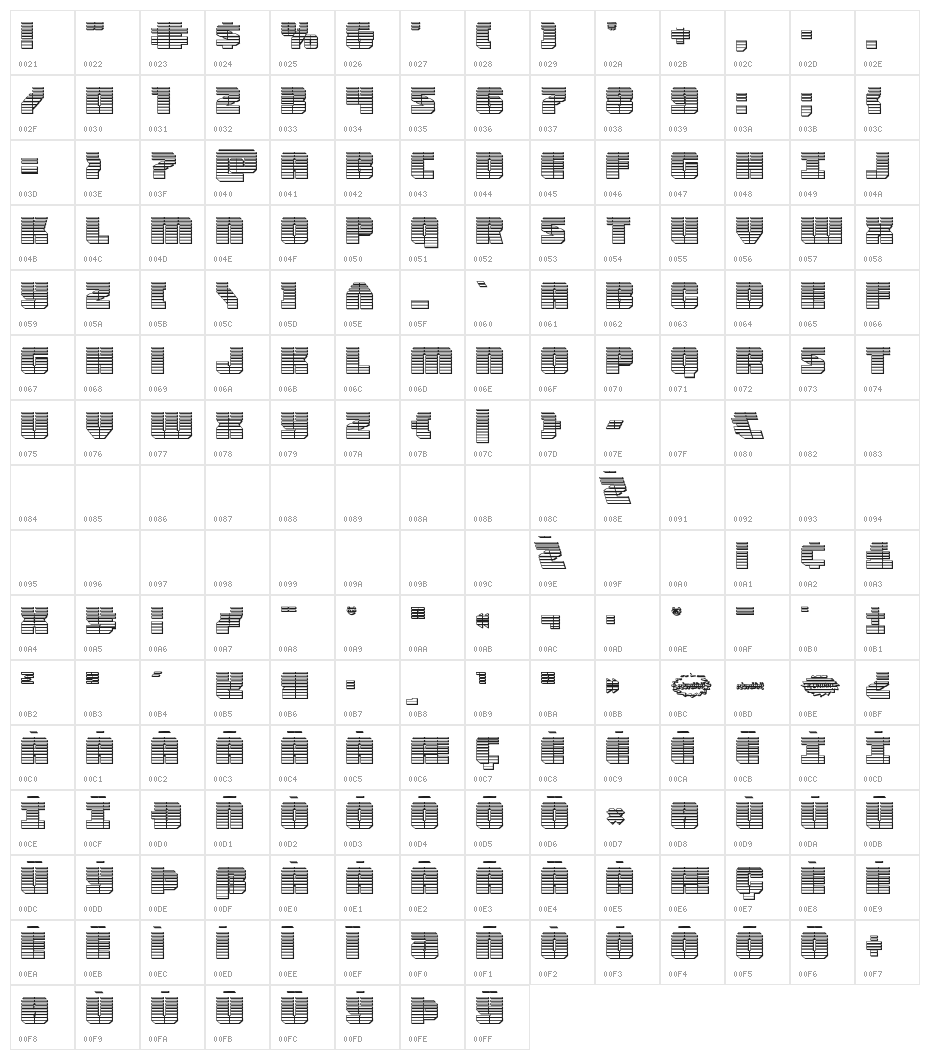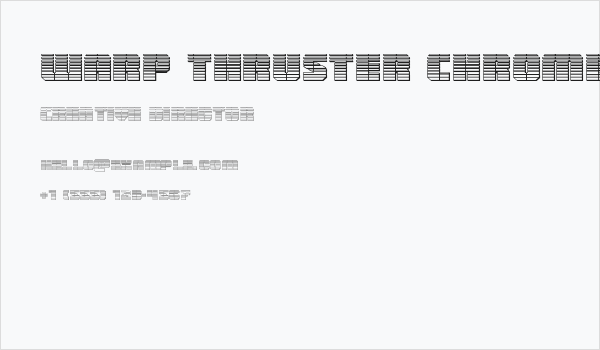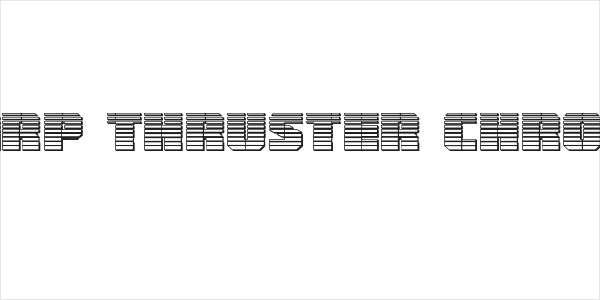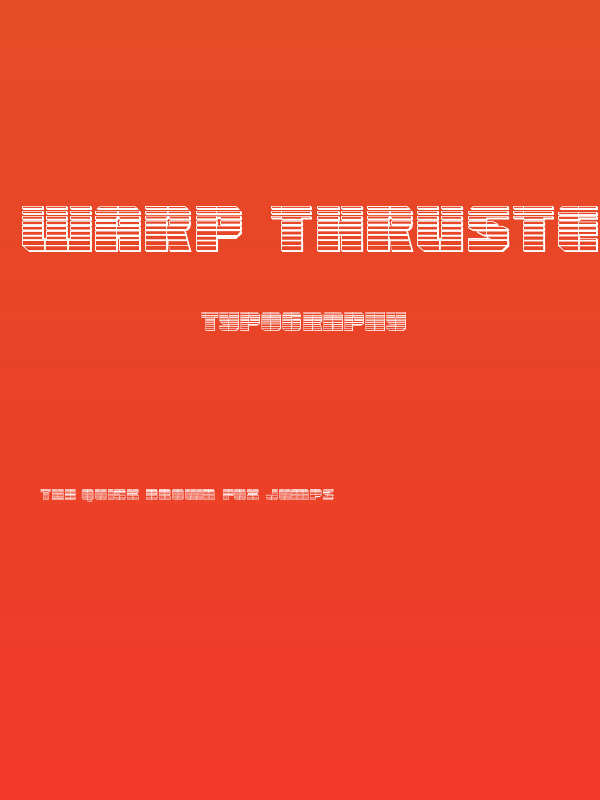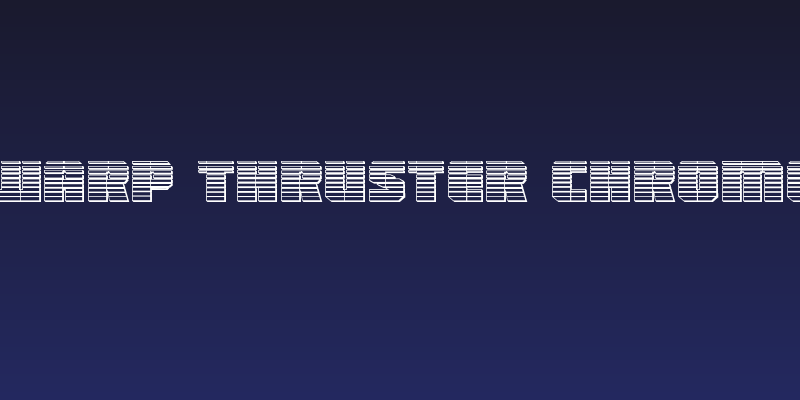
Warp Thruster Chrome Font
Warp Thruster Chrome Description
This font features a futuristic, chrome-like design with a distinct layered effect that gives each character a three-dimensional appearance. The letters are bold and wide, with horizontal lines creating a sense of depth and movement. The geometric structure of the characters is consistent, providing a cohesive and striking visual impact. This font is highly decorative, making it suitable for projects that require a modern and technological aesthetic. The unique style of the characters ensures that they stand out, making them ideal for attention-grabbing designs.
Proposed ProjectsIdeal for sci-fi themed posters, video game titles, tech event branding, and futuristic product packaging.